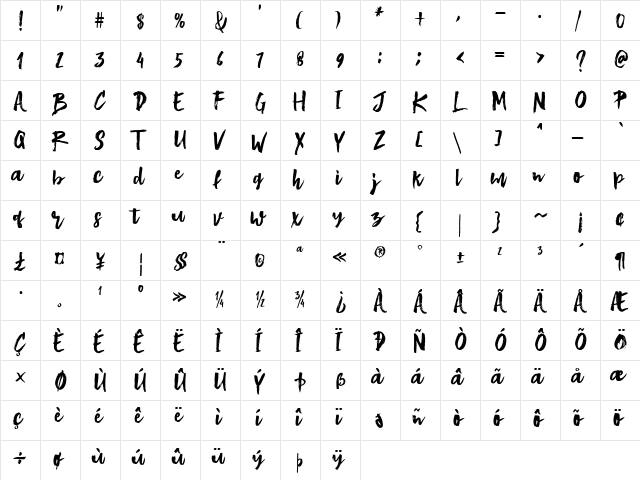
Bluesky Regular
| Foundry | Nuwexs |
| Designer | Anwar |
Design Context for Bluesky Typeface
Bluesky is a composed and adaptable typeface that performs quietly and consistently across a wide range of design contexts.